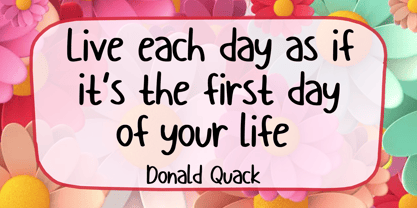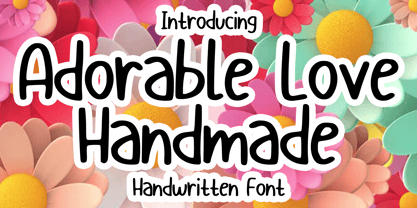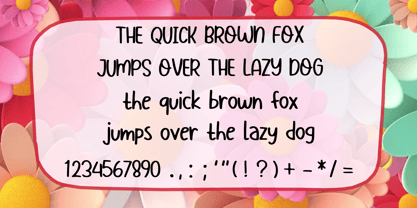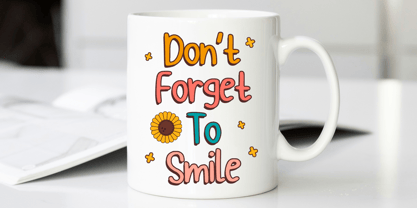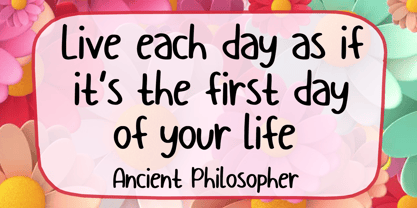
Adorable Love Handmade
by Mvmet
The Adorable Love Handmade Font Family was designed by Gabriel Valentinus and published by Mvmet. Adorable Love Handmade contains 1 styles.
Adorable Handmade is a charming and versatile handwritten font that brings a playful touch to various design themes. Ideal for enhancing a wide range of projects, this font is perfect for stickers, t-shirt designs, eye-catching logos, magazine and book covers, comics, cartoon illustrations, daily typing, and more. With its unique style, Adorable Handmade infuses delightful flair into your designs, ensuring they stand out and resonate with audiences. Its whimsical character makes it suitable for branding, packaging, and creative applications, offering a friendly and inviting aesthetic that captures attention.